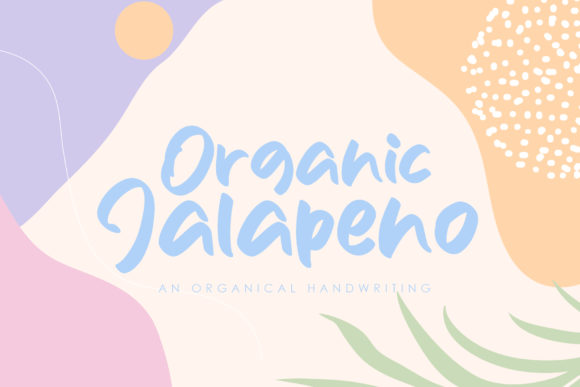
Introducing Organic Jalapeno Font - The Epitome of Enticing Elegance for Your Creative Endeavors
Dive into the world of Organic Jalapeno Font, a script font that embodies the essence of modern calligraphy. Its meticulously crafted characters, reminiscent of a gentle hand-lettered touch, will inject a touch of sophistication and charm into your designs.
With its chunky, handwritten style, Organic Jalapeno Font exudes a timeless appeal that blends seamlessly with various design aesthetics. Whether you're crafting wedding invitations, heartfelt thank-you cards, or captivating quotes, this font will elevate your words and make them shine.
But it doesn't stop there. Organic Jalapeno Font is a versatile chameleon, effortlessly adapting to a myriad of creative projects. Imagine your brand's logo adorned with its elegant curves, leaving an unforgettable impression on your audience. Business cards, greeting cards, and any design seeking a handwritten flair will find their perfect match in this font.
Step into a world of boundless creativity with Organic Jalapeno Font. Its versatility knows no bounds, making it the ideal choice for designers, calligraphers, and creative enthusiasts alike. Unleash your imagination and let your designs blossom with this enchanting font.